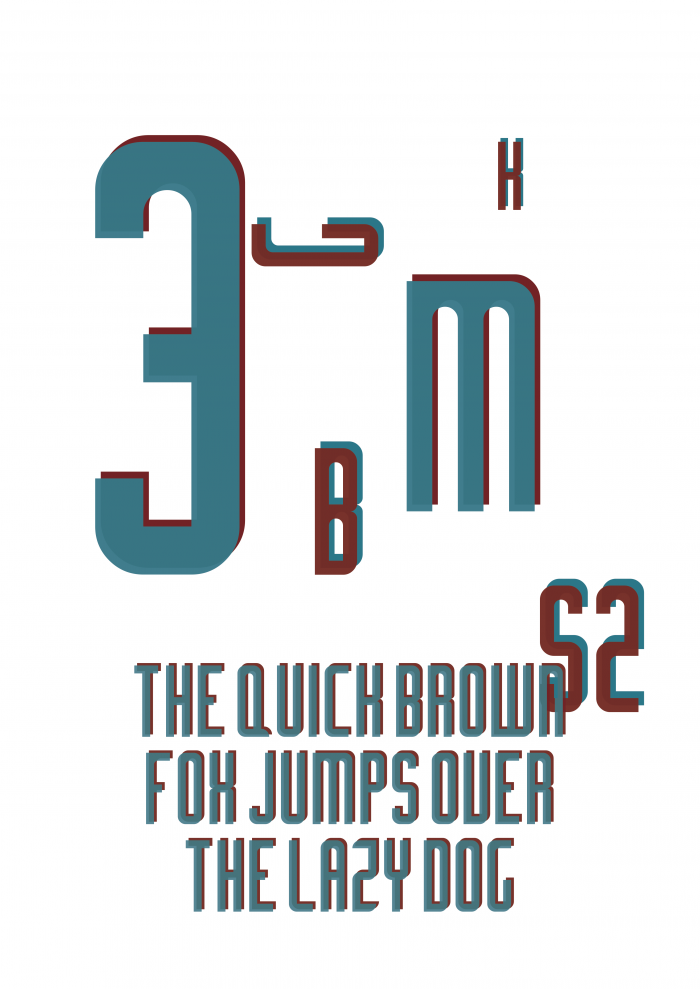
Type's fool is a modular font inspired by condensed letterpress font. It's called Type's fool. It's called types fool because besides to be inspired in condensed metal fonts his has curved corner.